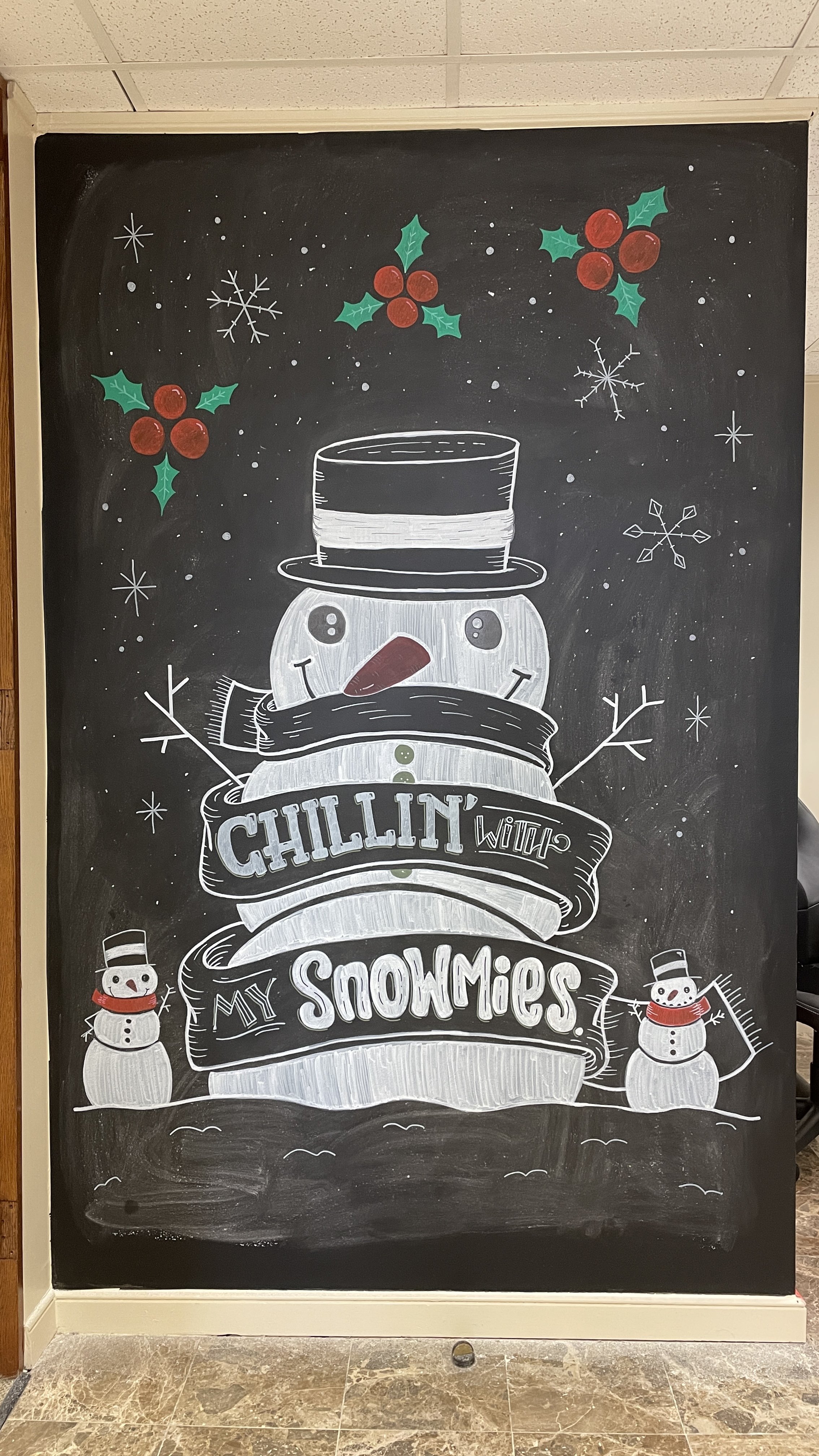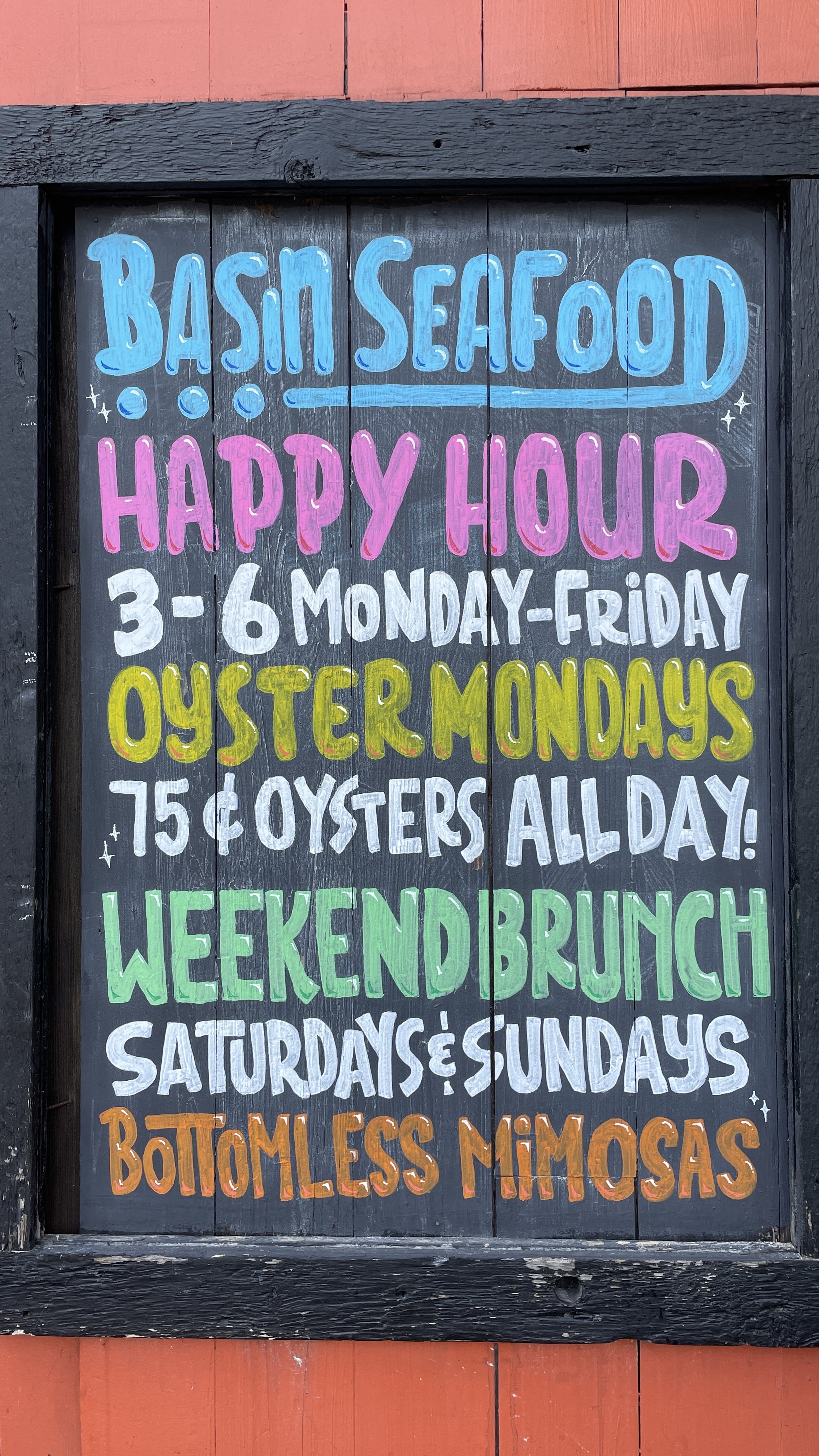
Chalk Walls and Signs
Creating custom chalk walls and signs has been an exciting way to merge art with functionality. Each piece is tailored to reflect the unique personality and purpose of the space, whether it’s a restaurant menu or a decorative wall mural for a business. I love the versatility of chalk as a medium—it allows for dynamic designs that blend bold typography, hand-drawn illustrations, and intricate details. Every project has been an opportunity to bring a fresh, creative vision to life.
The hands-on nature of this work means I’m deeply involved in every step, from brainstorming ideas and sketching concepts to the final chalk marker application. It’s incredibly rewarding to see how these designs not only transform a space but also create memorable experiences for those who interact with them.
Every custom project starts with sketches and approvals. The client wanted the words “Let the good times roll” be part of the design along with New Orleans-related doodles. This was the final design approved by the client.
Then comes projecting the design on the wall and sketching it out with chalk first. The bubble letters are free-handed around the skeleton of the words to make sure they fill in the banner correctly.
Once everything is colored in, the details, including highlights/shadows, dots and stars, were added. the longest time of the entire process is always the coloring in of the designs.
And the final product. There were some changes I had to make along the way, but all in all, the final design stayed true to the initial sketch. This was one of the few walls I created for the client, but it was definitely my favorite!